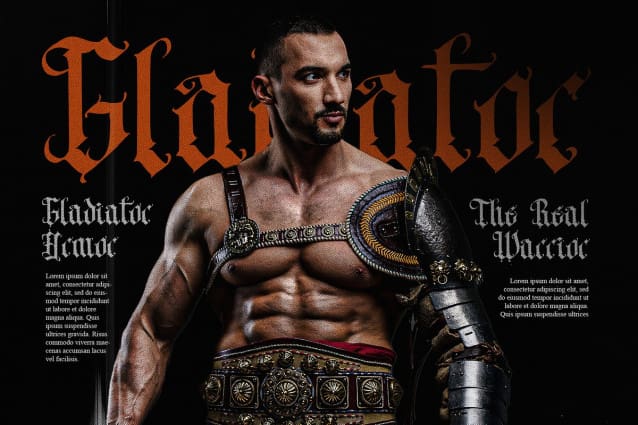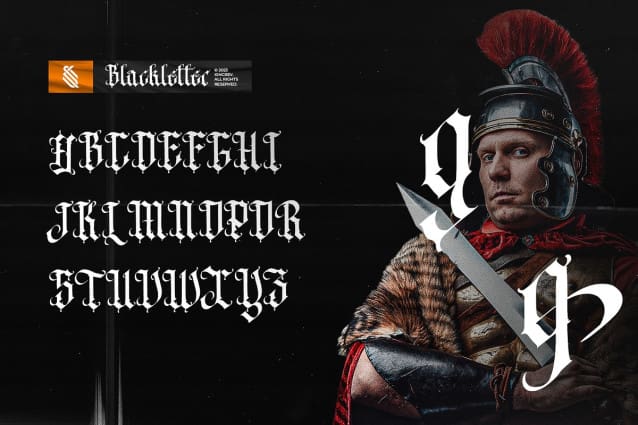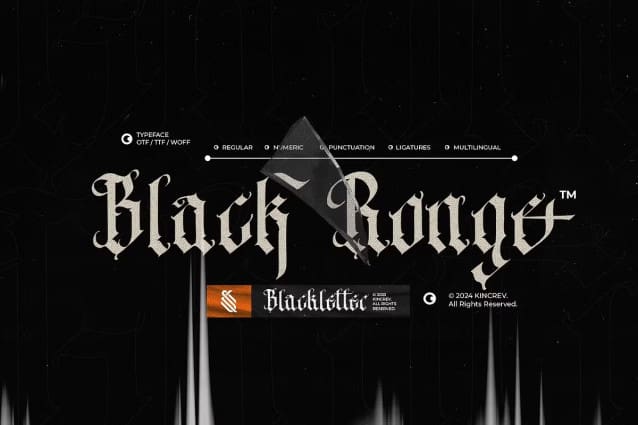
Black Ronge Font
Black Ronge Font, a Blackletter Font is font for you to get your designs with stylist, bold, and modern techno look. It is made in uppercase and lowercase letters which are easy on the eyes and nice to look at, and easy to read. This font is designed to bring your brandings to life and add a touch of modernity, fun and style.